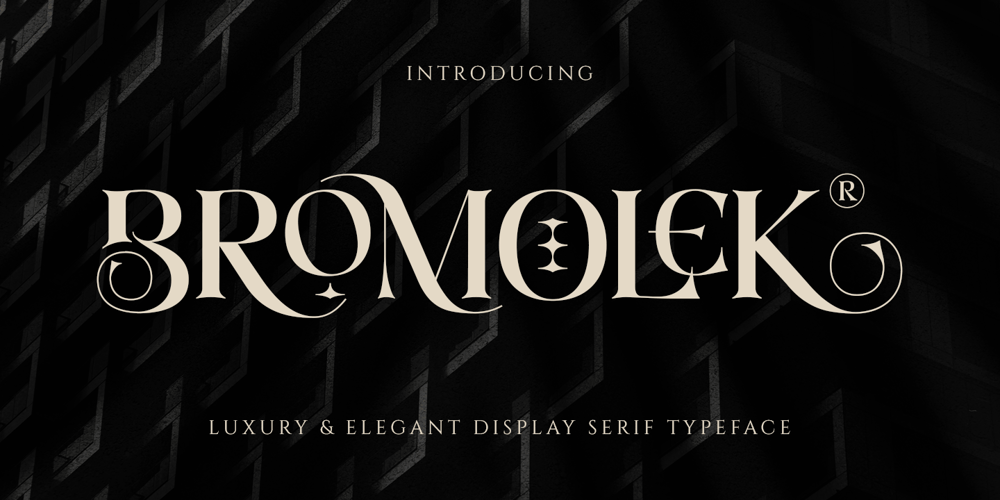
Bromolek
Bromolek font
Bromolek Font Family was designed by Abdul Malik Wisnu and published by Almarkha Type. Bromolek contains 1 styles and family package options. Hello Introducing, Bromolek – Luxury & Elegant Ligatures Serif is unique font that uses 27 Alternate 9 ligatures to smoothly link letters. inspired by the famous minimalist logo, perfect for the purposes of designing templates, brochures, videos, advertising branding, logos and more. Perfect for adding a unique twist to word-mark logos, monograms or pull quotes.What’s Included :+ Standard glyphs+ Ligatures glyphs+ Alternate glyphs+ Web Font+ International Accent+ Works on PC & Mac+ Simple installationsAccessible in the Adobe Illustrator, Adobe Photoshop, Adobe InDesign, even work on Microsoft Word. PUA Encoded Characters – Fully accessible without additional design software. Fonts include multilingual support + Image used : All photographs/pictures/vector used in the preview are not included, they are intended for illustration purpose only.Thank You